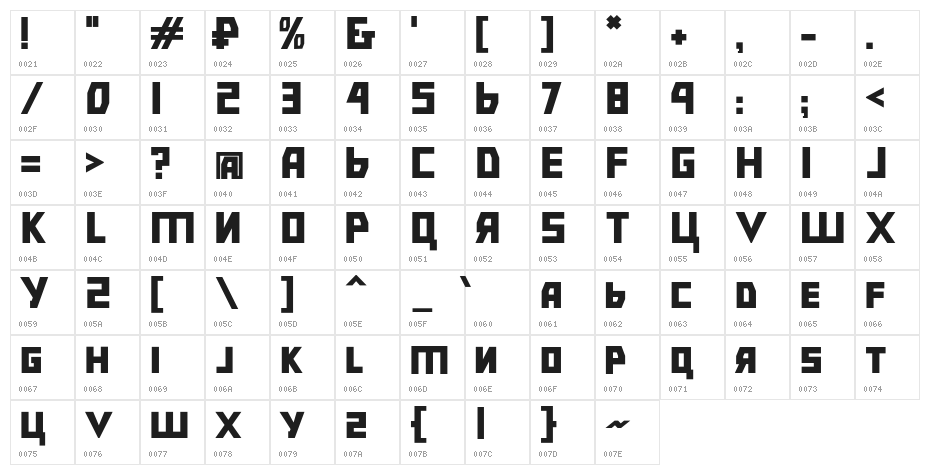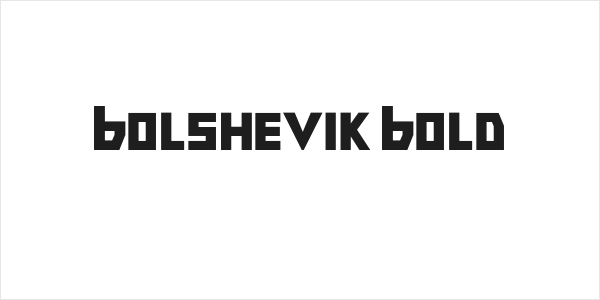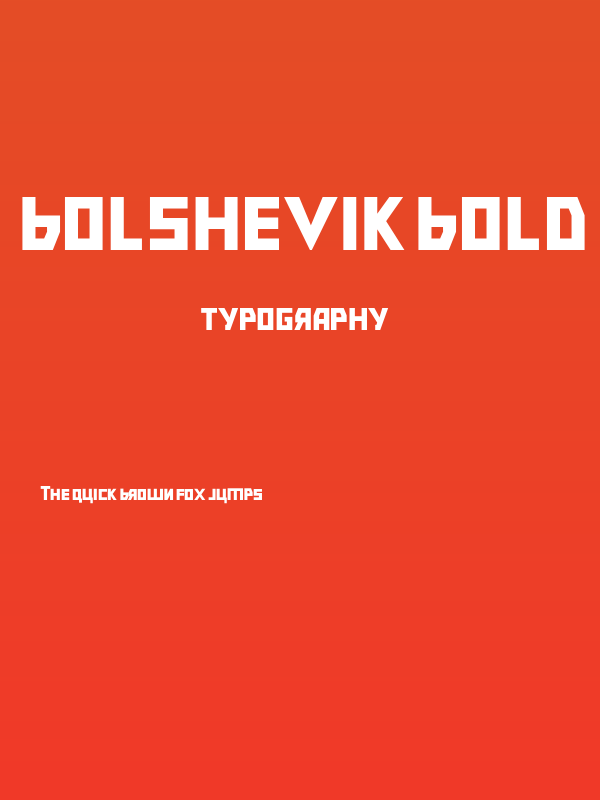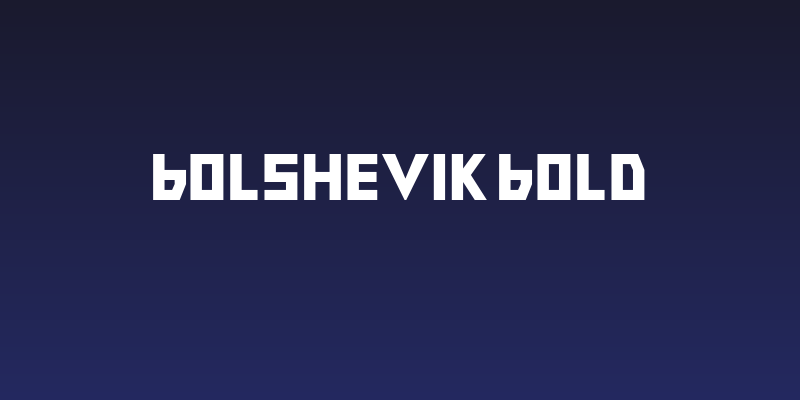
Bolshevik Bold Font
Bolshevik Bold Description
This bold, geometric typeface features strong, angular lines and a blocky structure, reminiscent of constructivist design. The characters are uniform in height, with sharp edges and a consistent stroke width that conveys a sense of strength and stability. The uppercase and lowercase letters maintain a cohesive style, while the numerals and special characters complement the overall aesthetic. The font's distinct appearance makes it suitable for impactful designs that require a bold statement.
| Proposed Projects | Ideal for posters, logos, branding, and any design requiring a bold, impactful presence. |